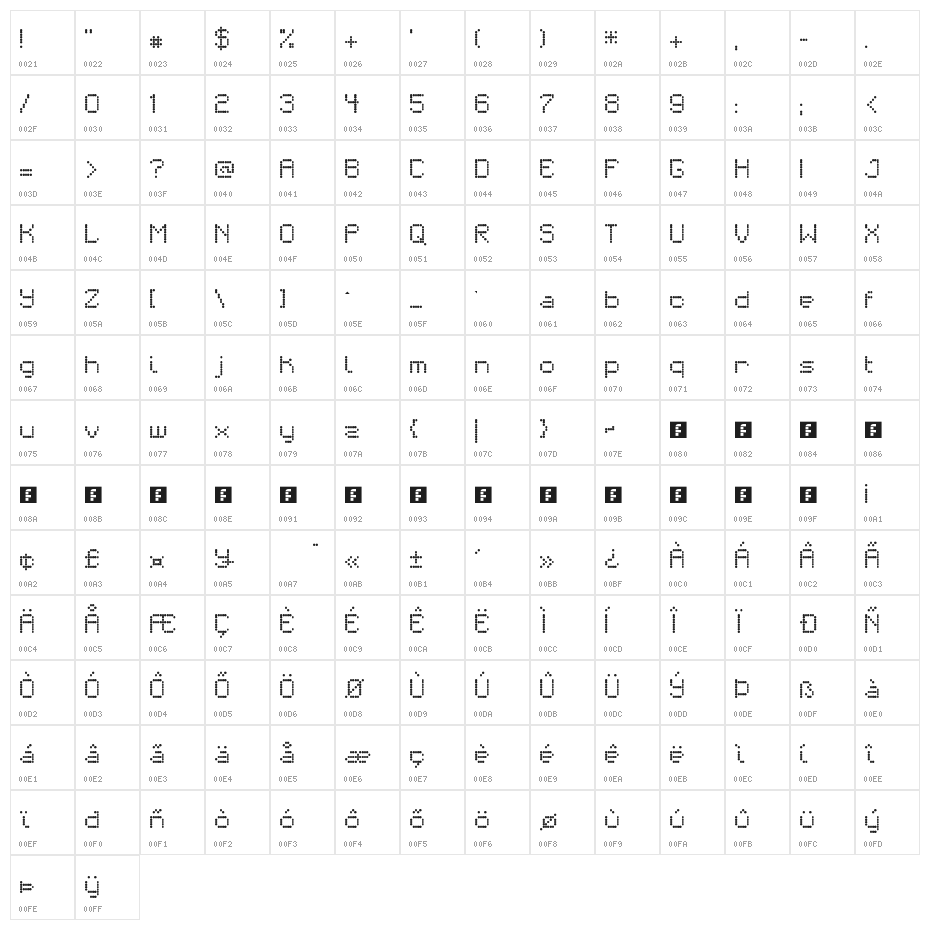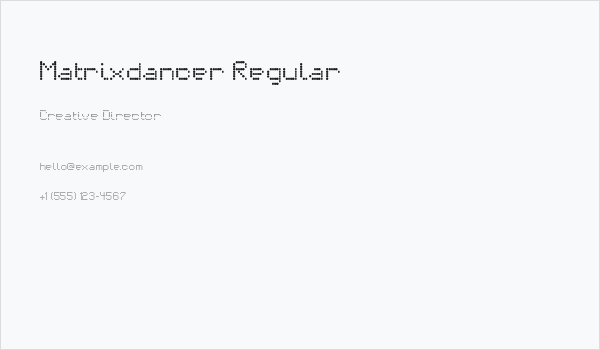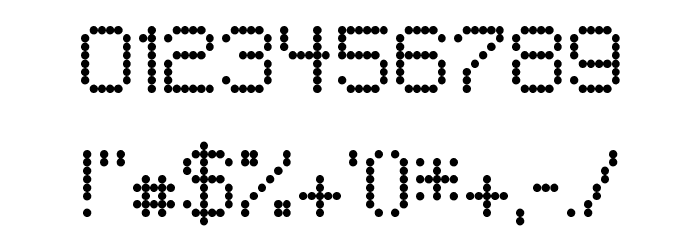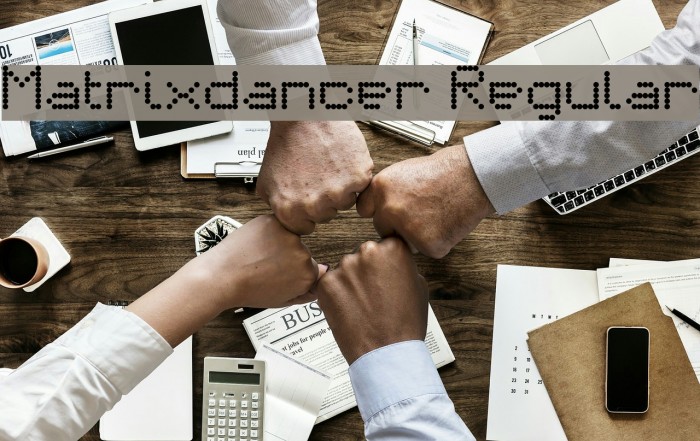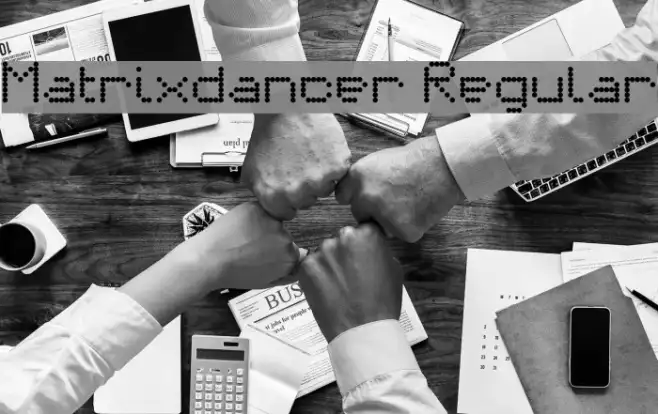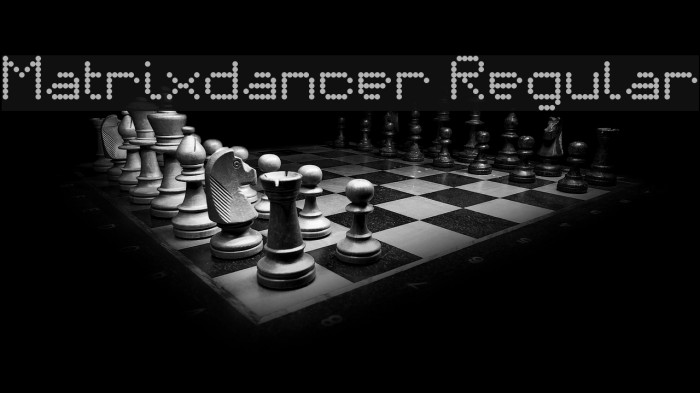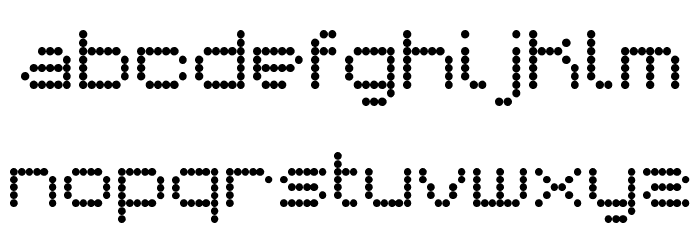
Matrixdancer Regular Font
Matrixdancer Regular Description
This font features a unique dot matrix design, where each character is composed of small, evenly spaced dots. The style is reminiscent of digital displays or LED signs, giving it a modern and technological feel. The characters are uniformly constructed, maintaining a consistent height and width across both uppercase and lowercase letters. The numerals and special characters follow the same dot pattern, ensuring a cohesive look throughout. This font's playful yet structured appearance makes it suitable for creative projects that require a digital or futuristic aesthetic.
| Use Case | Headlines, Logos, Digital displays |
| Proposed Projects | Ideal for digital displays, tech-themed posters, futuristic branding, or any project requiring a modern, digital look. |